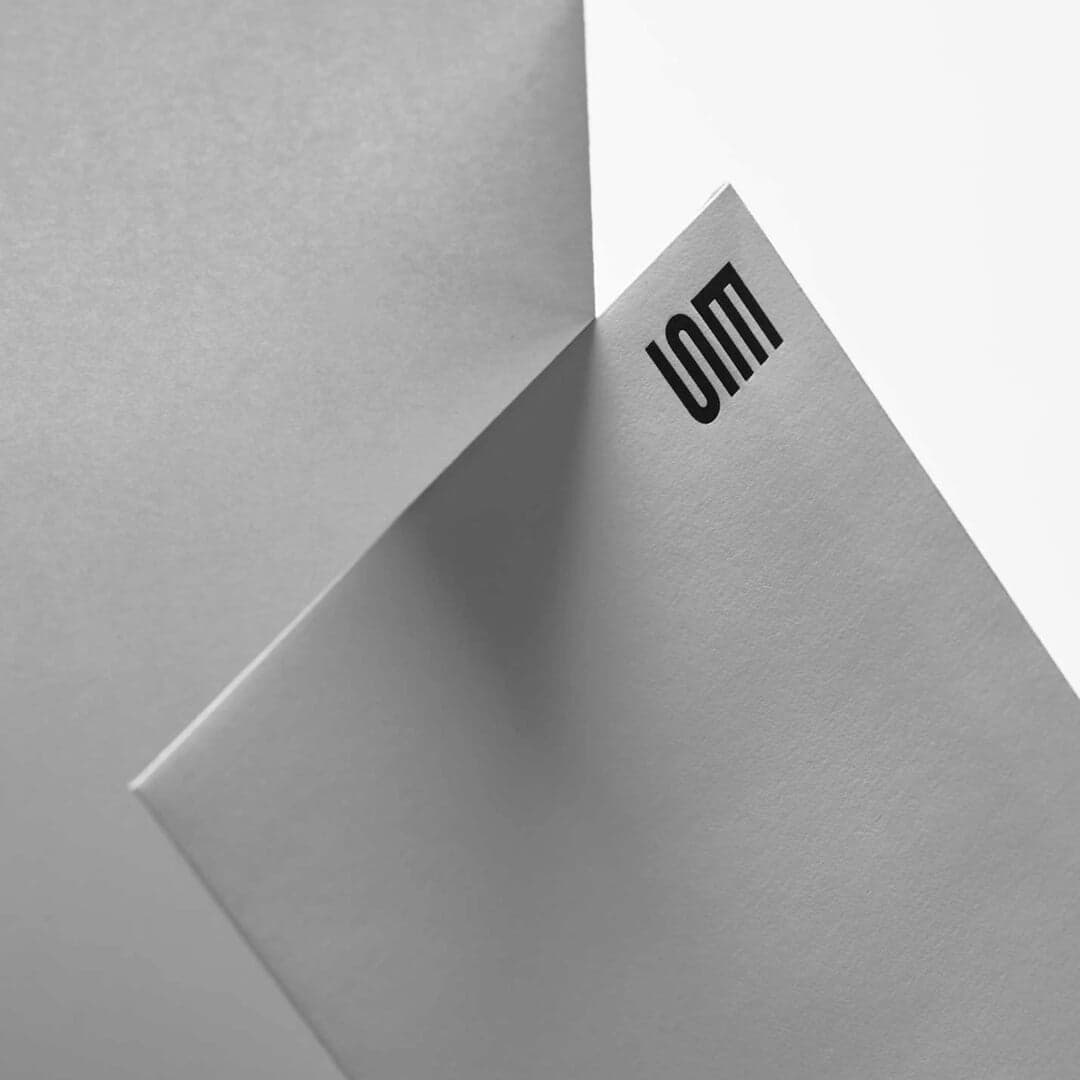
Ateljé Altmann developed a custom wordmark and typeface to refine and unify its visual identity. The design emphasizes clarity and craftsmanship, reflecting the studio’s commitment to personal, detail-oriented work.